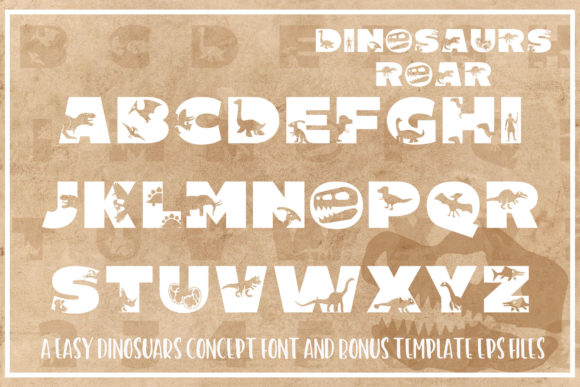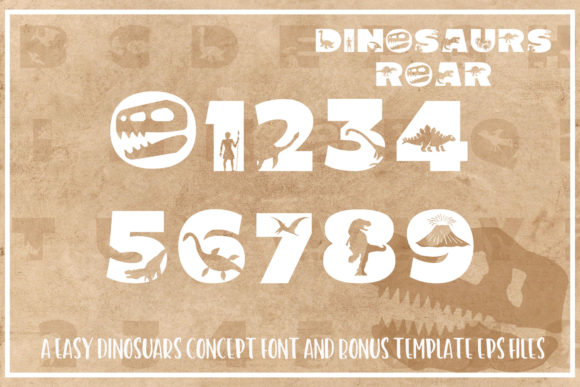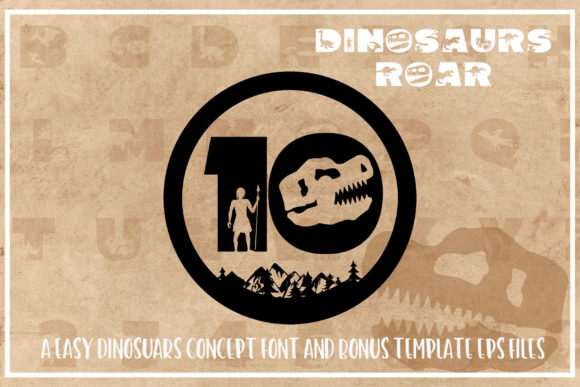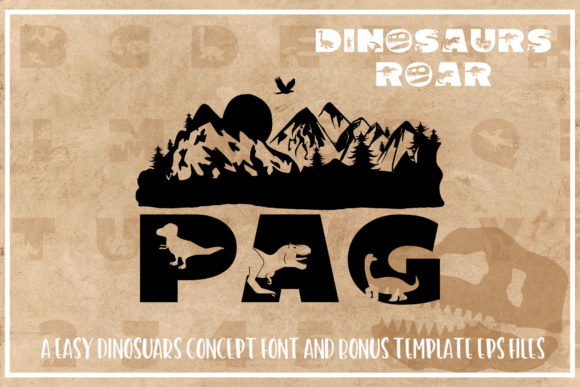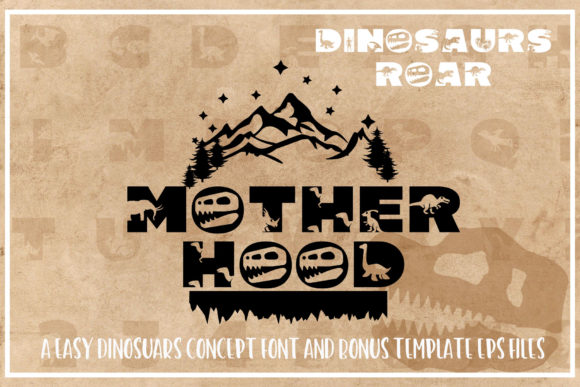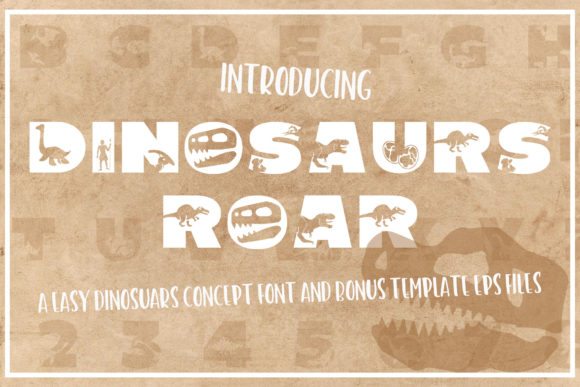
Dinosaurus Roar Font: A Prehistoric Twist for Your Designs
Are you tired of using the same old fonts for your designs? Do you want to add a touch of fun and whimsy to your projects? Look no further than the Dinosaurus Roar Font! This delightful font is perfect for crafty designers and enthusiasts who want to add a prehistoric twist to their work.
What is Dinosaurus Roar Font?
Dinosaurus Roar is a fun and chunky lettered decorative font that features lovely dinosaurs as ornaments. This original look is sure to appeal to a wide range of crafty ideas, from letterheads and titles to stationery. The font is designed to bring a smile to your face and a roar of excitement to your designs.
Key Features of Dinosaurus Roar Font
- Unique and quirky design: The Dinosaurus Roar Font features a one-of-a-kind design that is sure to stand out from the crowd. The chunky letters and adorable dinosaur ornaments make it a perfect choice for designs that need a playful touch.
- High-quality graphics: The font is made up of high-quality graphics that are clear and crisp, making it perfect for use in a variety of designs, from digital projects to print materials.
- Easily customizable: The Dinosaurus Roar Font is easy to customize, allowing you to adjust the size, color, and style to fit your design needs.
Uses for Dinosaurus Roar Font
The Dinosaurus Roar Font is a versatile font that can be used in a variety of design projects, including:
- Letterheads and titles: Add a touch of fun and whimsy to your letterheads and titles with the Dinosaurus Roar Font.
- Stationery: Create adorable stationery sets, including greeting cards, invitations, and thank-you cards, using the Dinosaurus Roar Font.
- Digital projects: Use the font in digital projects, such as social media graphics, blog posts, and website headers.
- Print materials: The font is perfect for use in print materials, including brochures, flyers, and posters.
- Crafting projects: The Dinosaurus Roar Font is a great choice for crafty enthusiasts who want to add a personal touch to their projects, such as scrapbooking, journaling, and card making.
Tips for Using Dinosaurus Roar Font
Here are a few tips for using the Dinosaurus Roar Font in your designs:
- Use it sparingly: While the Dinosaurus Roar Font is fun and playful, it can be overwhelming if used too much. Use it sparingly to add a touch of whimsy to your designs.
- Experiment with colors: The font looks great in a range of colors, so don’t be afraid to experiment and find the perfect color scheme for your design.
- Pair it with other fonts: The Dinosaurus Roar Font pairs well with other fonts, so try combining it with a sans-serif font for a fun and playful look.
The Dinosaurus Roar Font is a fun and playful font that is perfect for designers and crafty enthusiasts who want to add a prehistoric twist to their work. With its unique and quirky design, high-quality graphics, and easily customizable features, this font is sure to be a hit with anyone who uses it. So why not give it a try and see how you can use it to roar your designs to life?